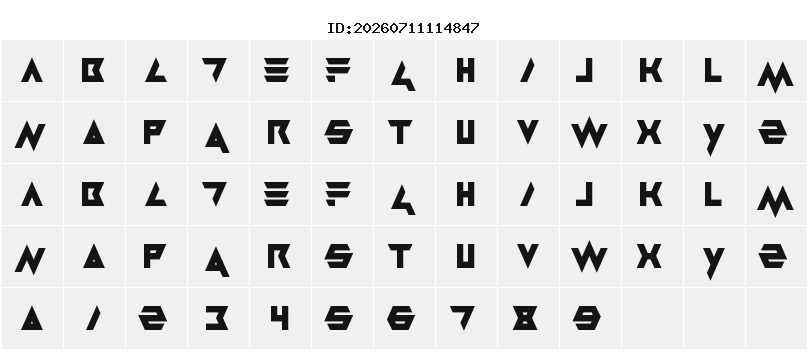
Masterblast Preview
• Font Name: Masterblast
• Font ID: Masterblast:Version 1.00
• Full Font Name: Masterblast
• Version: Version 1.00 June 16, 2014, initial release
• PostScript Name: Masterblast
• Designer: Andrew McCluskey
• Description: This font was created using FontCreator 7.5 from High-Logic.com
About Masterblast.otf
Masterblast.otf is a modern, elegant sans-serif font designed for ultimate readability and visual harmony. Perfect for branding, headlines, web design, and print materials.